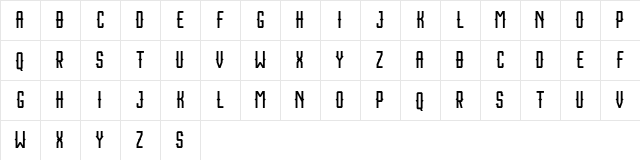
Houston Sport Free Regular
Design Context for Houston Sport Free Typeface
Houston Sport Free brings high-energy athletic personality to the page — its confident, muscular forms are built for impact.
Built for sports team identities, athletic apparel, event posters, and high-energy promotional material.
Font Pairing: Use alongside a condensed or geometric sans for supporting copy — keep the pairing bold, functional, and free of ornament.
Pro Tip: Houston Sport Free thrives on contrast — try it large, bold, and tight against a clean background for maximum visual impact.